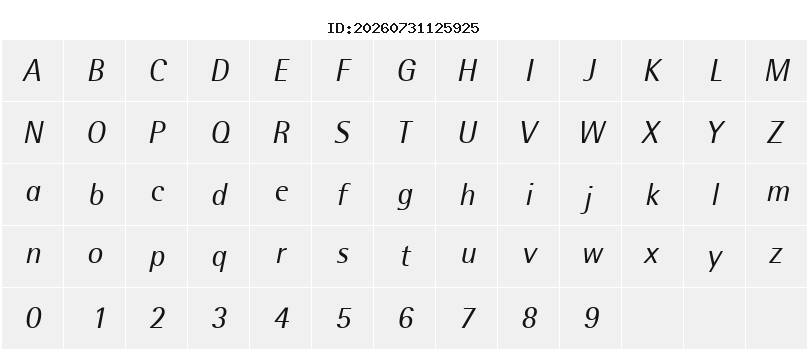
About Libre Semi Sans SSi.ttf
Libre Semi Sans SSi.ttf is a modern, elegant sans-serif font designed for ultimate readability and visual harmony. Perfect for branding, headlines, web design, and print materials.